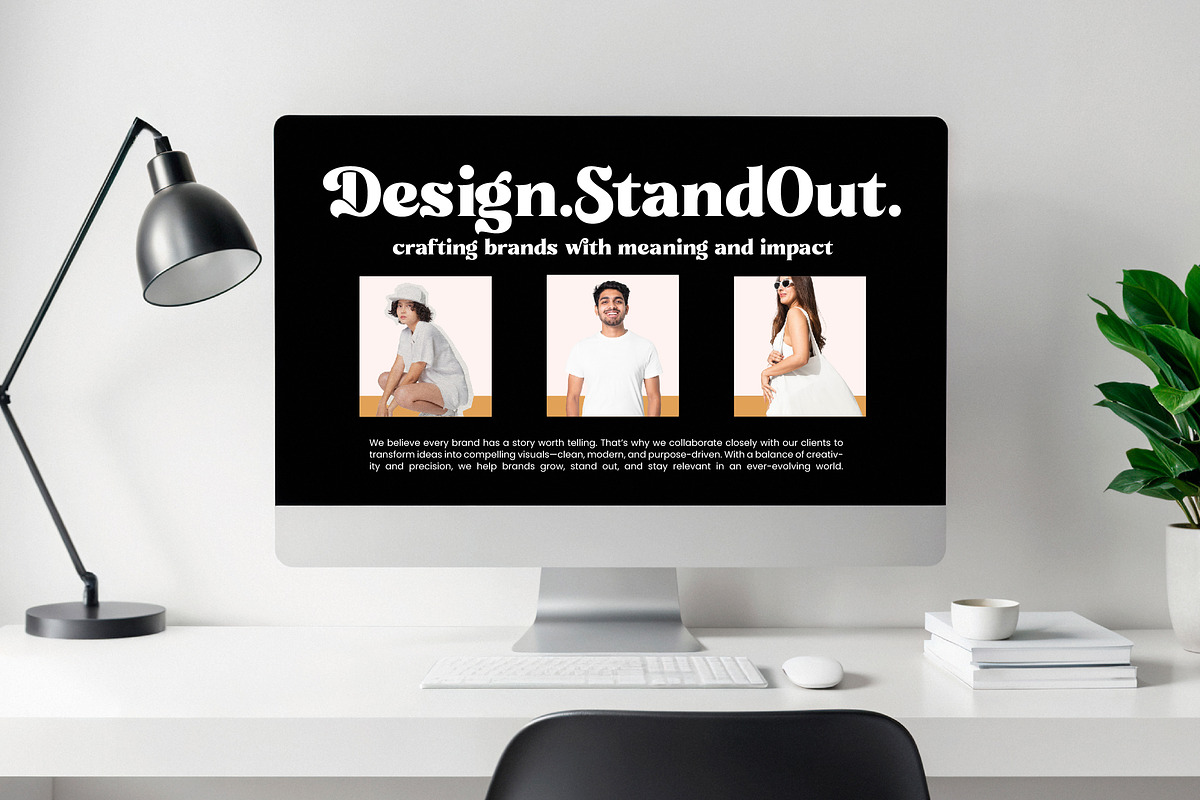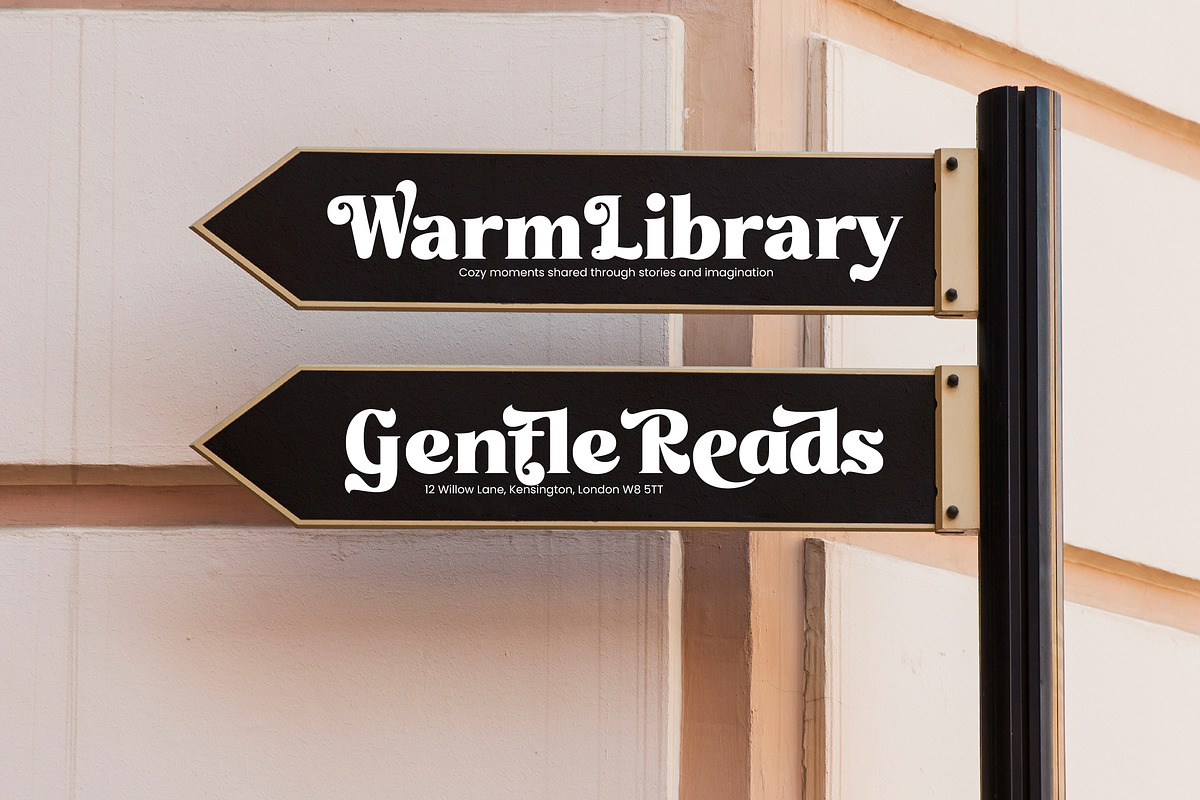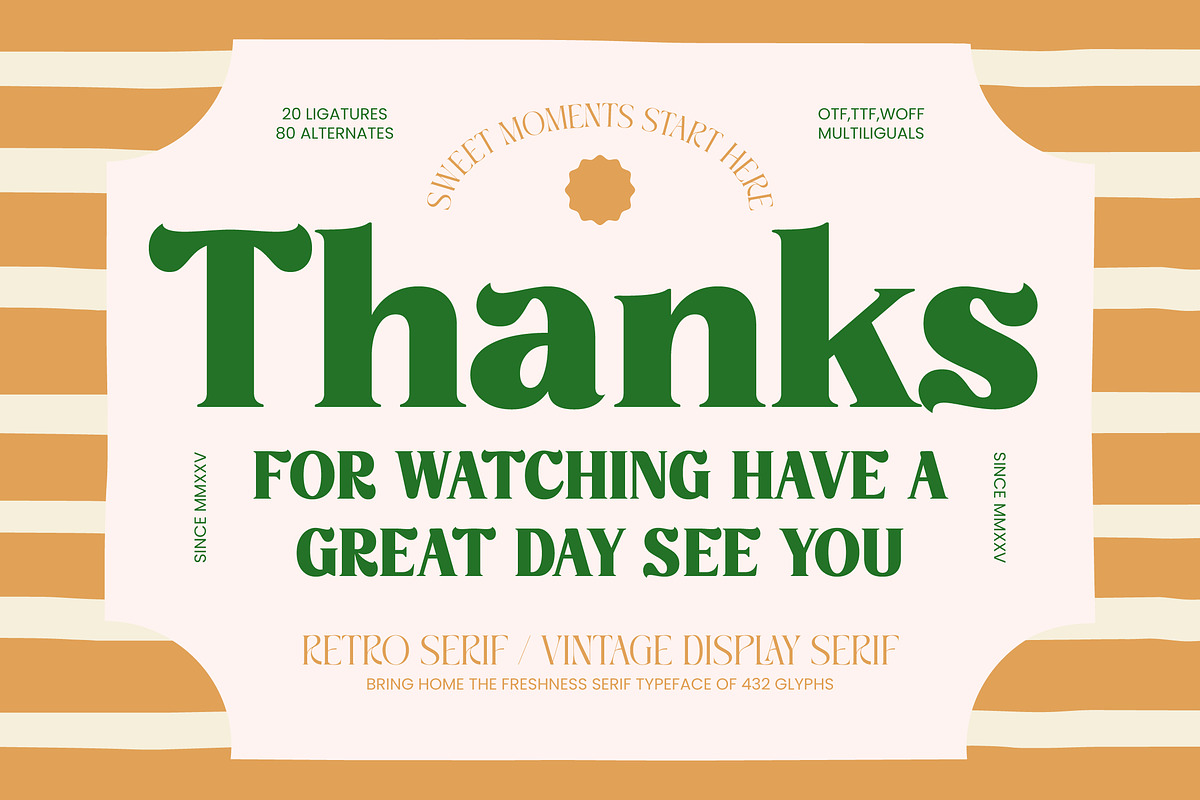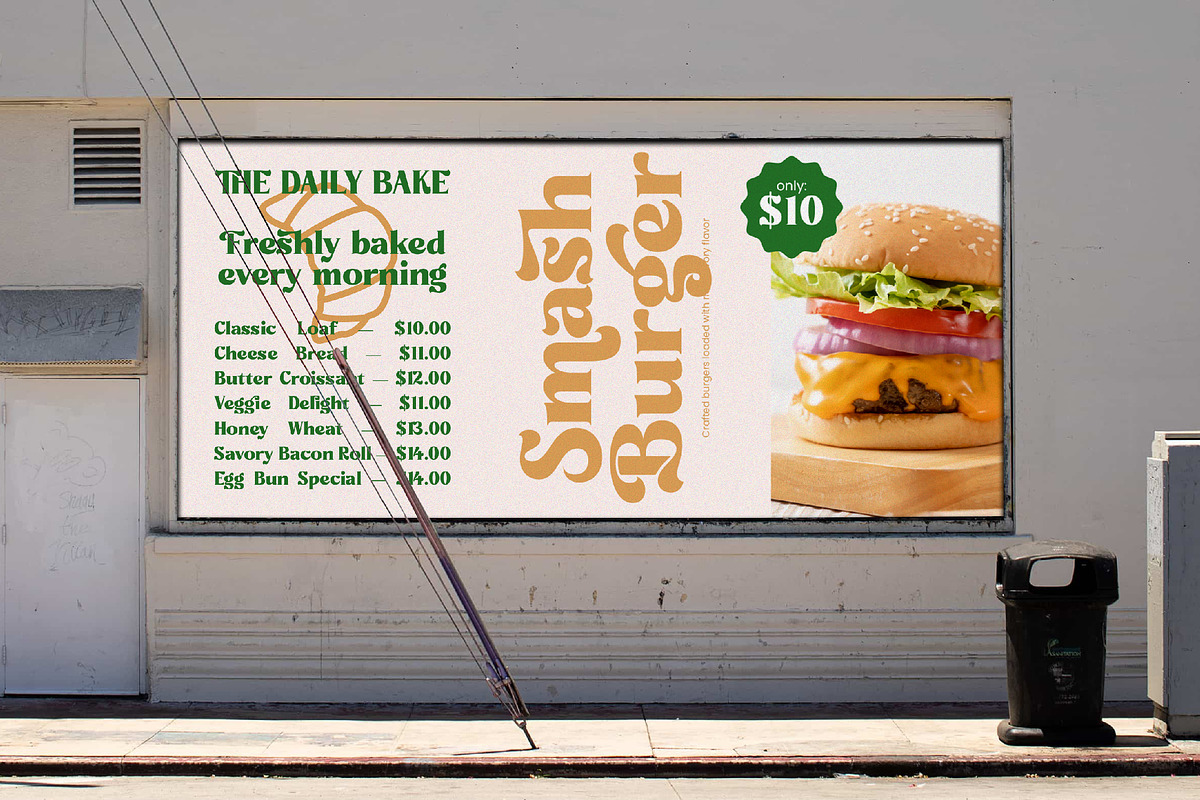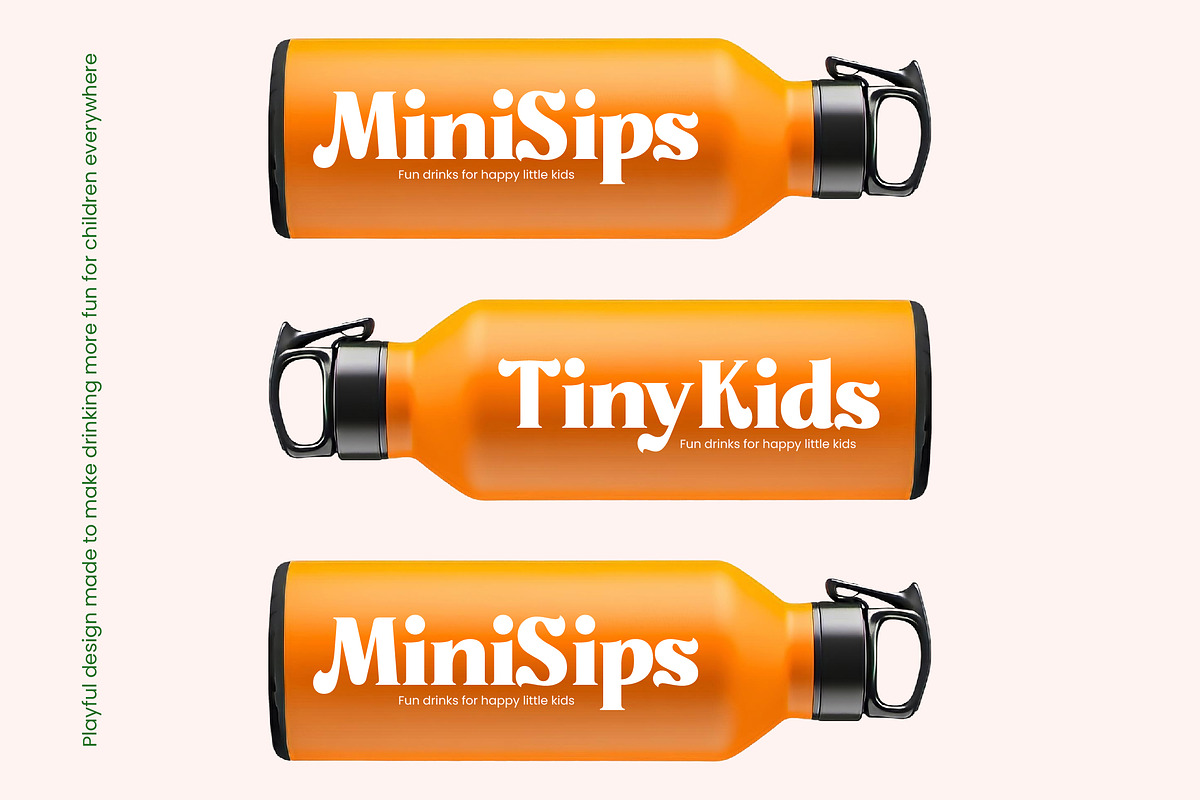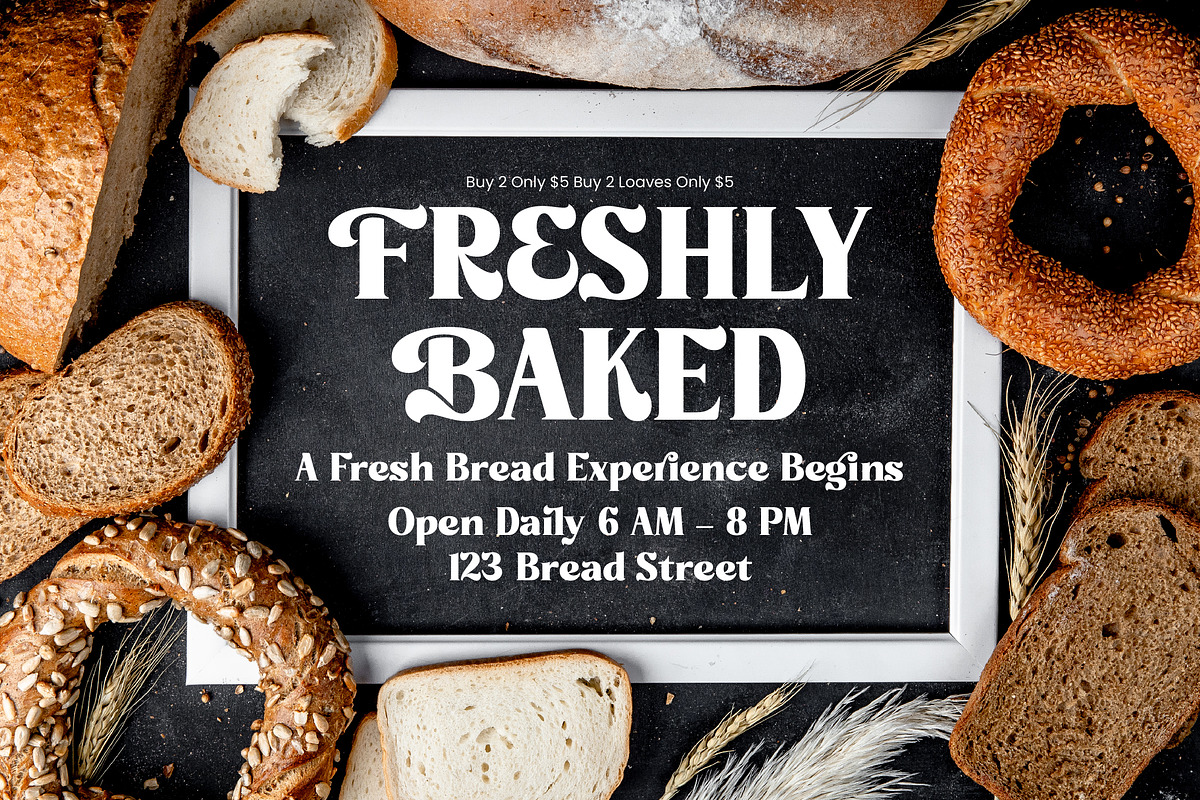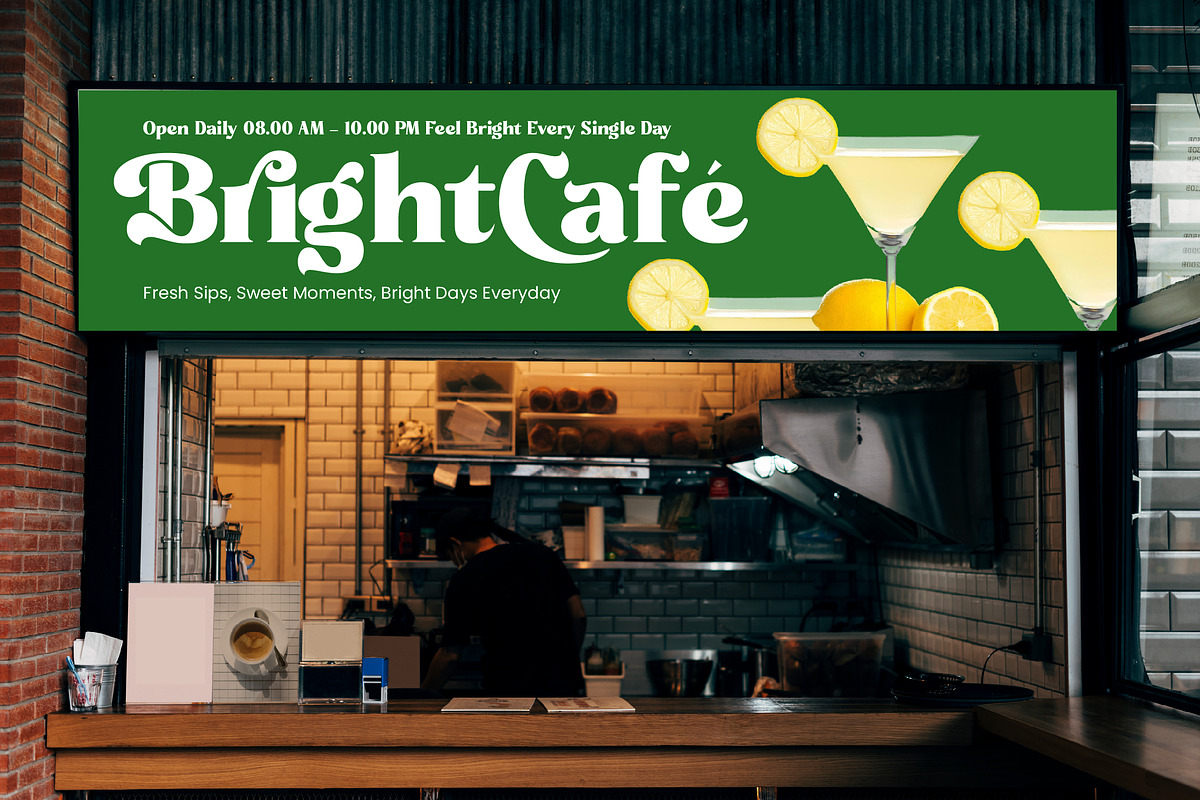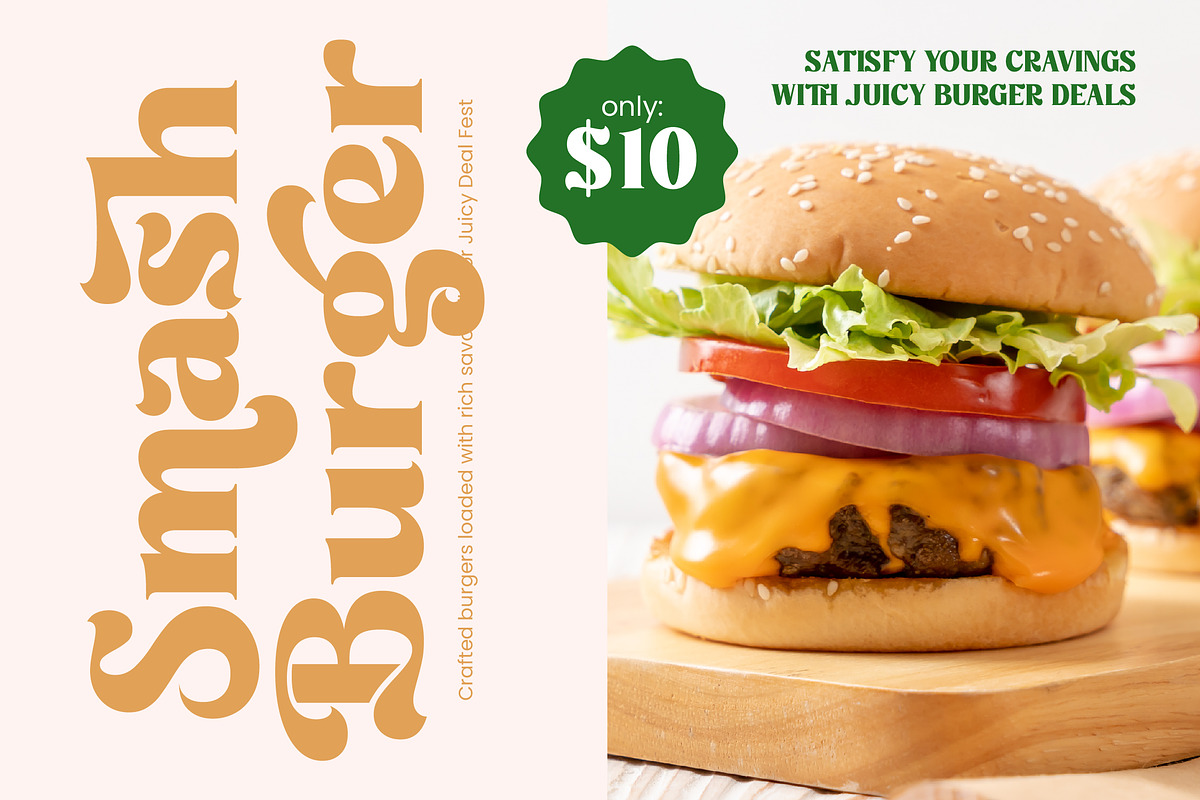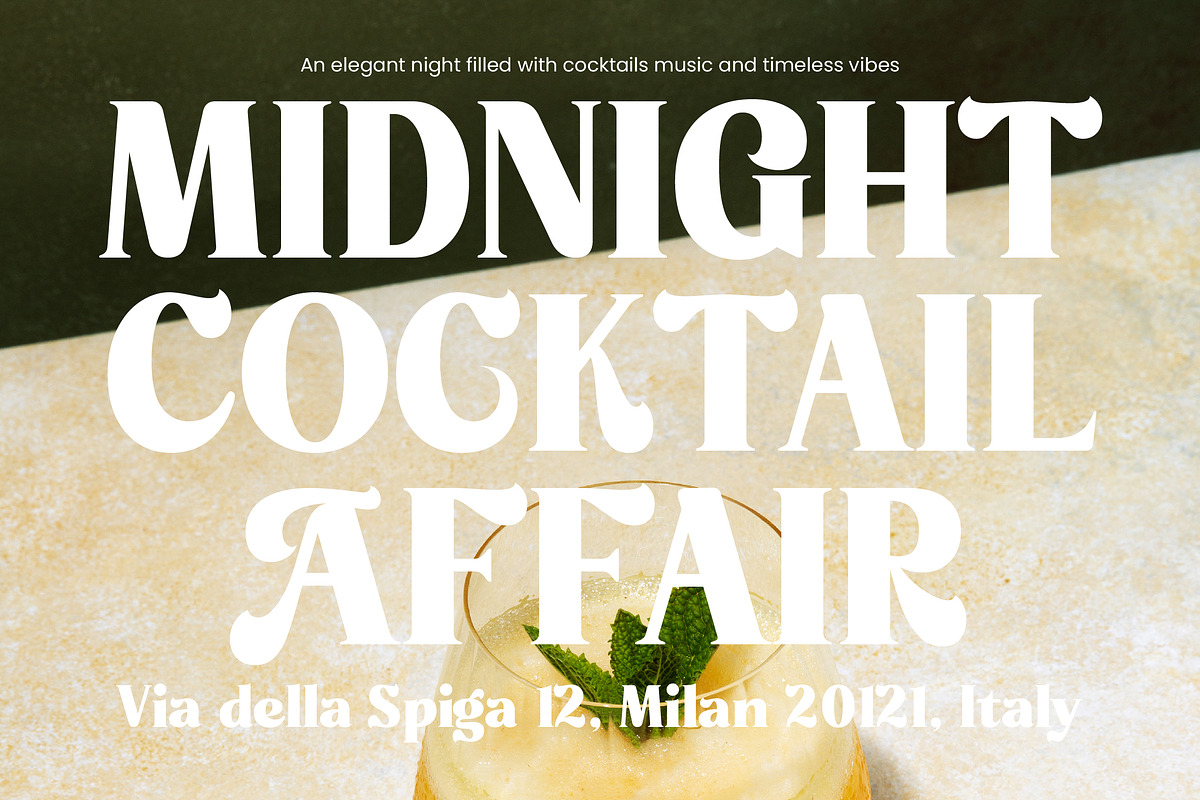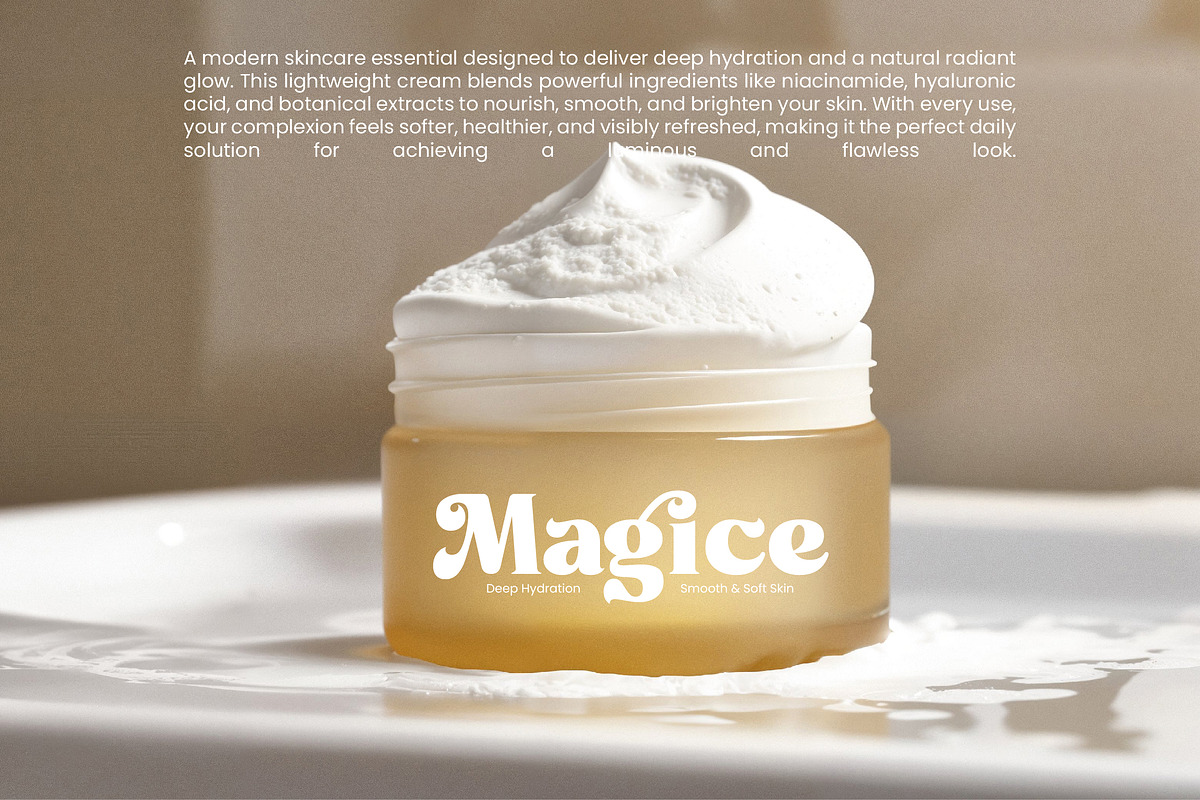
Misago Sweet Retro Serif Font
Misago Sweet - Retro Serif Vintage Display Font , Introducing Misago Sweet, a delightful journey into typographic charm that breathes fresh life into your creative projects. This font is a masterpiece of balance, blending nostalgic curves with a sophisticated modern edge.
Inspired by the vibrant energy of 1970s editorial layouts and organic market aesthetics, Misago Sweet captures the essence of "freshness in the making." It draws from the soft, rounded forms of nature to create a visual language that feels both heirloom and avant-garde.
As a modern serif display, this typeface commands attention through its high-contrast serif design and playful rhythm. It is a tool for luxury typography that prioritizes branding impact, ensuring every word tells a story of quality and refined taste while functioning as a premier editorial font.
Tapping into the current modern serif trend, this typeface responds to the industry's shift toward character-driven typography that breaks away from sterile minimalism. It perfectly fits the demand for editorial display fonts that offer a distinct, human-centric personality in a digital-first world.
Misago Sweet is the ultimate choice for high-end logo design and comprehensive branding systems that need to stand out on a shelf. From artisanal packaging and high-street fashion lookbooks to romantic wedding stationery and upscale editorial spreads, its versatility is unmatched.
This package is technically robust, featuring a staggering 432 glyphs including elegant ligatures and creative alternates that allow for deep customization. It also includes comprehensive multilingual support and a wide array of international characters, ensuring your message resonates across global markets without losing its stylistic swashes.
Numerals
Punctuations (OpenType Standard)
Accents (Multilingual Characters)
Ligatures and Alternative Style Stylistic Set